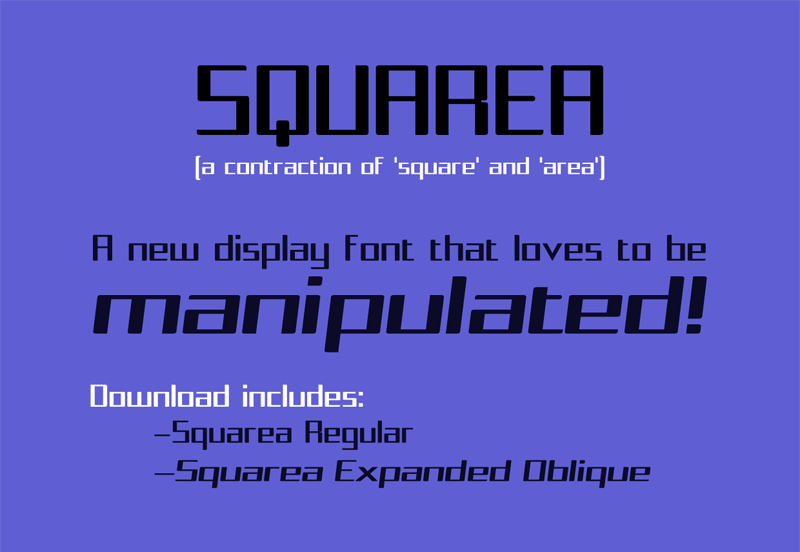
Font name: | Squarea |
Author: | Steve Gardner |
Note by Steve Gardner | |
Squarea started out as logo design project and developed into a working font. When working on new logo designs, it is not unusual for me to stretch or skew an existing font; the problem with this is that most fonts start to look horribly distorted, even when the manipulation is minimal. Squarea was designed to be manipulated. The Regular version of this font was drawn with contrasting horizontal and vertical stroke widths, and with a combination of square and rounded corners. These features, together with the absence of curved edges, make the font fairly tolerant to stretching and skewing. As an example, I've included an 'Expanded Oblique' version within the zip file, which was stretched by 127% and skewed by 7% (I also took 5% off of the height for balance). You can use this as a preset or, if your using an image editing application, apply your own parameters to the Regular version. The fonts are free to use for personal projects, but require a licence for commercial use. The price is $5 (USD) payable by clicking the 'donate' button. Please also check out my other fonts and let me know if you have any feedback or suggestions. Thanks! |